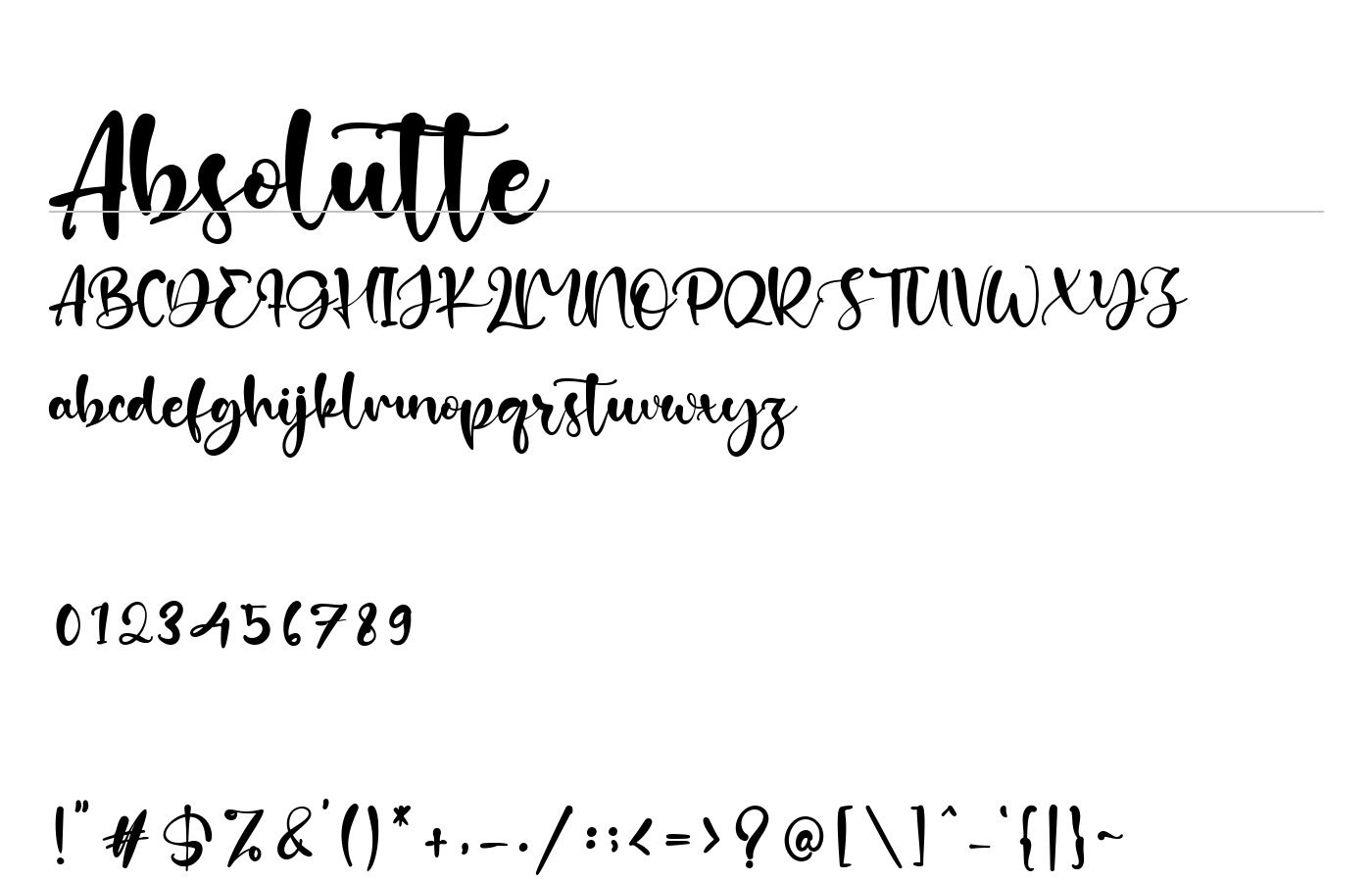
Absolutte is a lively and elegant script font characterized by smooth, flowing strokes and a playful handwritten feel. Its medium weight and casual yet refined letterforms with charming flourishes make it perfect for creative branding, invitations, and stylish editorial projects. This font brings a warm, approachable personality that suits fashion, lifestyle, and feminine design themes beautifully.
Absolutte Font
About Absolutte Font